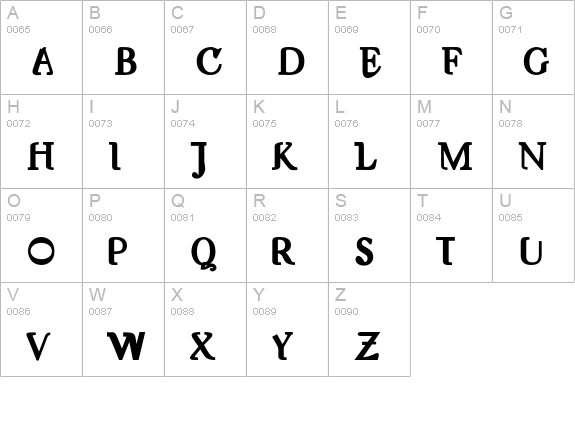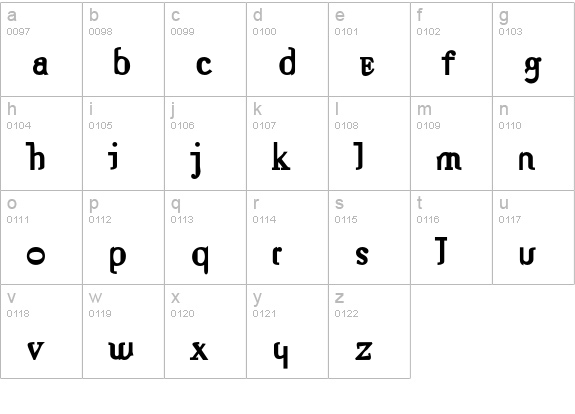
Nameless-Bold Font Details
Nameless-Bold is a strong, high-contrast variant in the Nameless typeface family \xE2\x80\x94 well suited to headlines, attention-grabbing titles, and strong calls-to-action.
Introducing Nameless-Bold, a versatile and modern font that exudes confidence and sophistication. With its bold and eye-catching design, Nameless-Bold is perfect for making a statement in your projects. Whether you're designing a poster, logo, or website, this font will help you stand out from the crowd. What sets Nameless-Bold apart is its unique blend of elegance and strength, making it suitable for a wide range of design applications. Its clean lines and sharp edges give it a contemporary edge, while its bold weight commands attention and ensures readability. Best of all, Nameless-Bold is available for free download at FontsMarket.com, allowing you to easily incorporate this stylish font into your work without breaking the bank. Don't miss out on the opportunity to elevate your designs with the sleek and modern aesthetic of Nameless-Bold. Download it today and let your creativity shine!